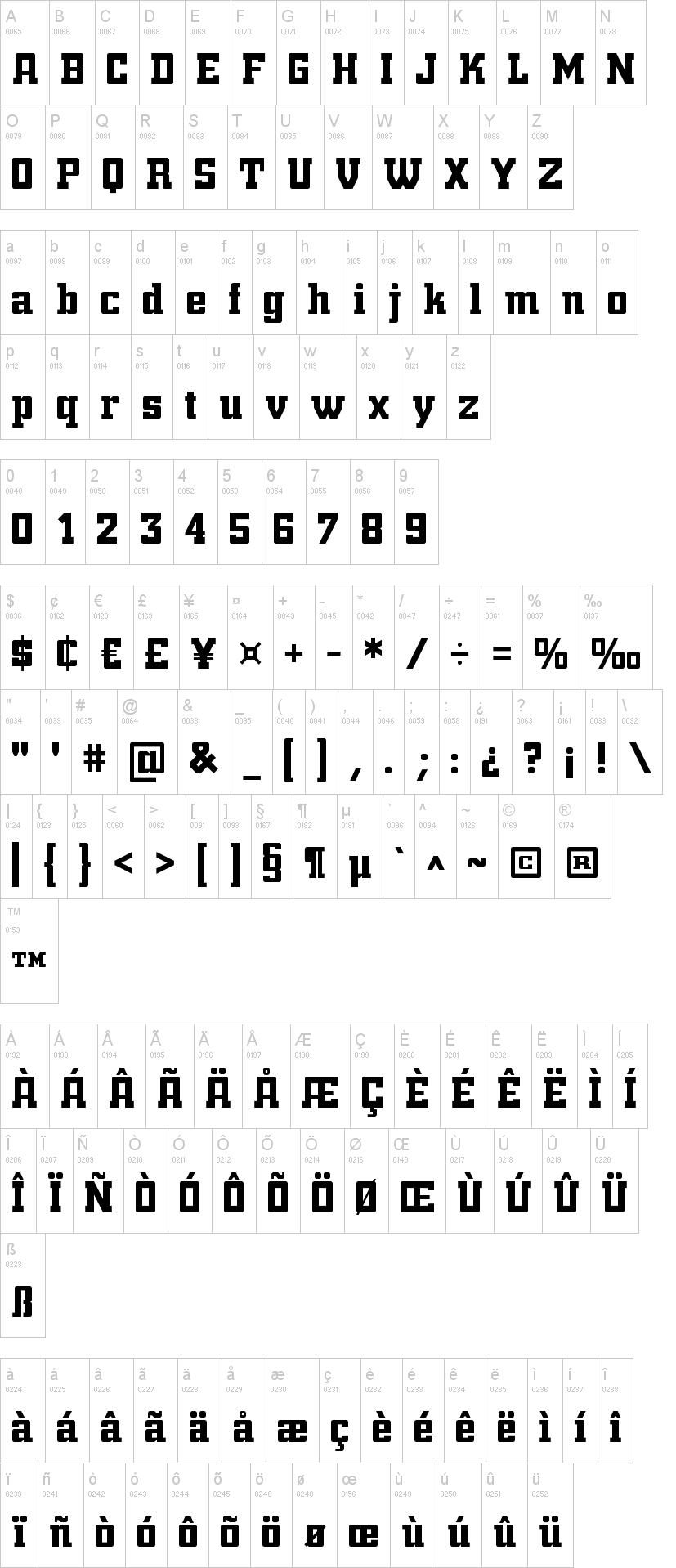
Note of the authorBased on and adapted from Georg Trumps classic from 1930.
This font was originally made with FontStruct but this Pro version have cleaned up outlines, quite a few tweaked letterforms (because of FontStructs limitations ;) , corrected spacing, and added kerning and hinting... It has also been scaled - and some additional diacritics added.
They contain some unusual diacritic letters (some of which are contained in the Latin Extended-B Unicode block) supporting: Cornish, Filipino (Tagalog), Guarani, Luxembourgian, Malagasy, Romanian, Ulithian and Welsh.
They also contain all glyphs in the Latin Extended-A Unicode block (which among others cover the Central European and Baltic areas) supporting: Afrikaans, Belarusian (Lacinka), Bosnian, Catalan, Chichewa, Croatian, Czech, Dutch, Esperanto, Greenlandic, Hungarian, Kashubian, Kurdish (Kurmanji), Latvian, Lithuanian, Maltese, Maori, Polish, Saami (Inari), Saami (North), Serbian (latin), Slovak(ian), Slovene, Sorbian (Lower), Sorbian (Upper), Turkish and Turkmen.
And they of course contain all the usual "western" glyphs supporting: Albanian, Basque, Breton, Chamorro, Danish, Estonian, Faroese, Finnish, French, Frisian, Galican, German, Icelandic, Indonesian, Irish (Gaelic), Italian, Northern Sotho, Norwegian, Occitan, Portuguese, Rhaeto-Romance, Sami (Lule), Sami (South), Scots (Gaelic), Spanish, Swedish, Tswana, Walloon and Yapese.